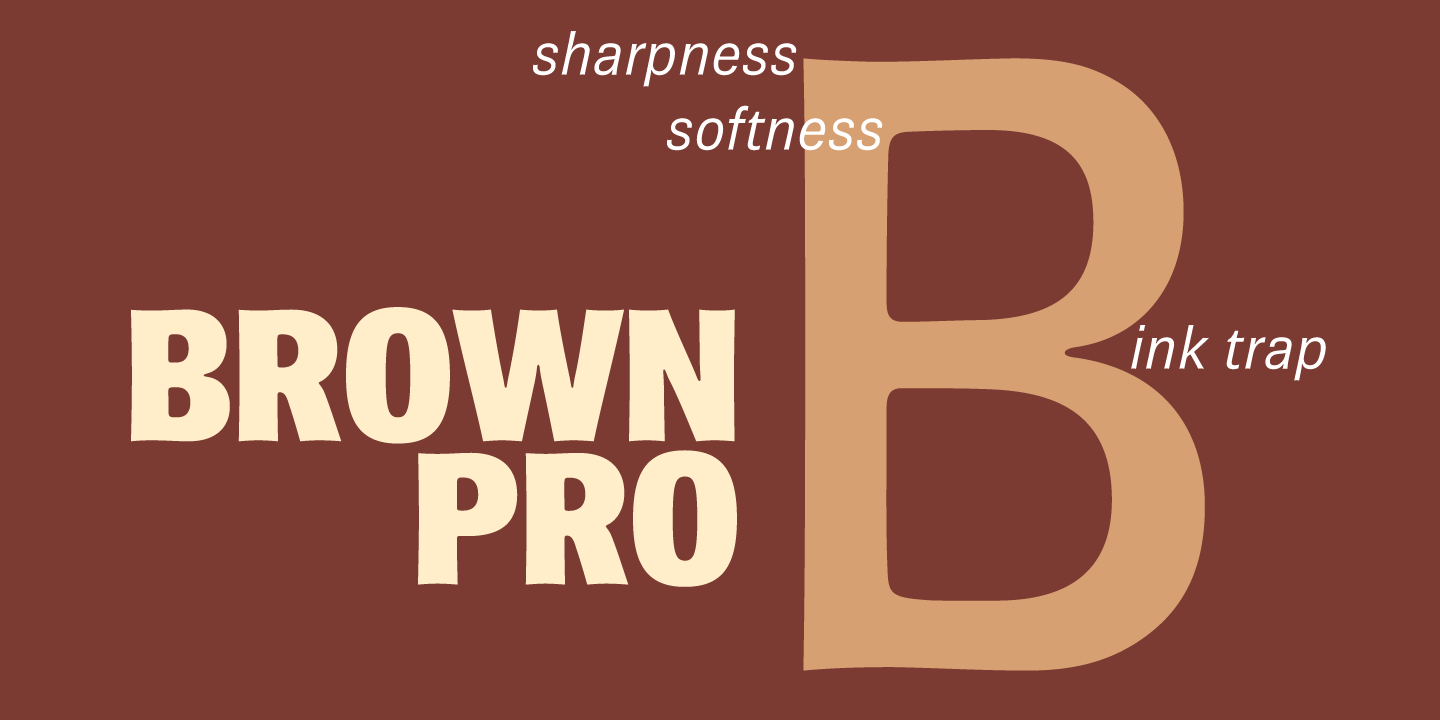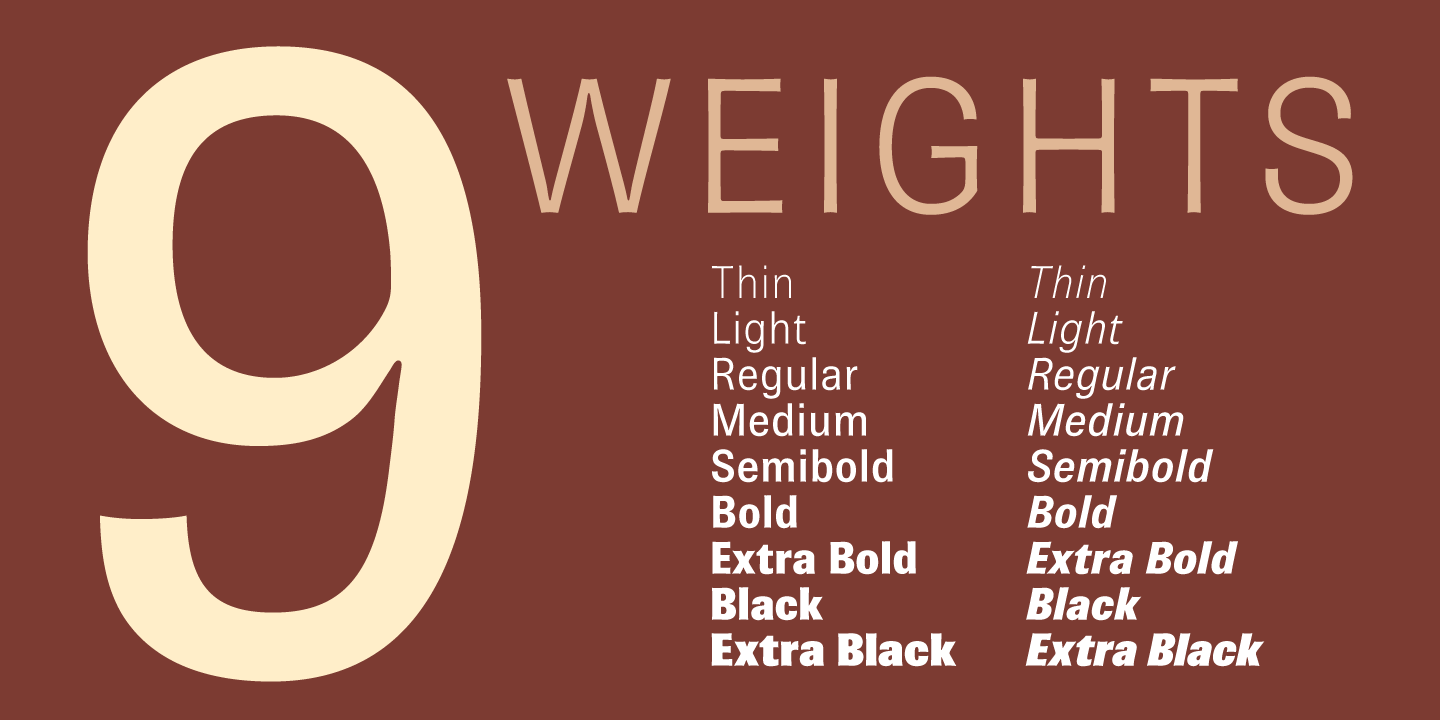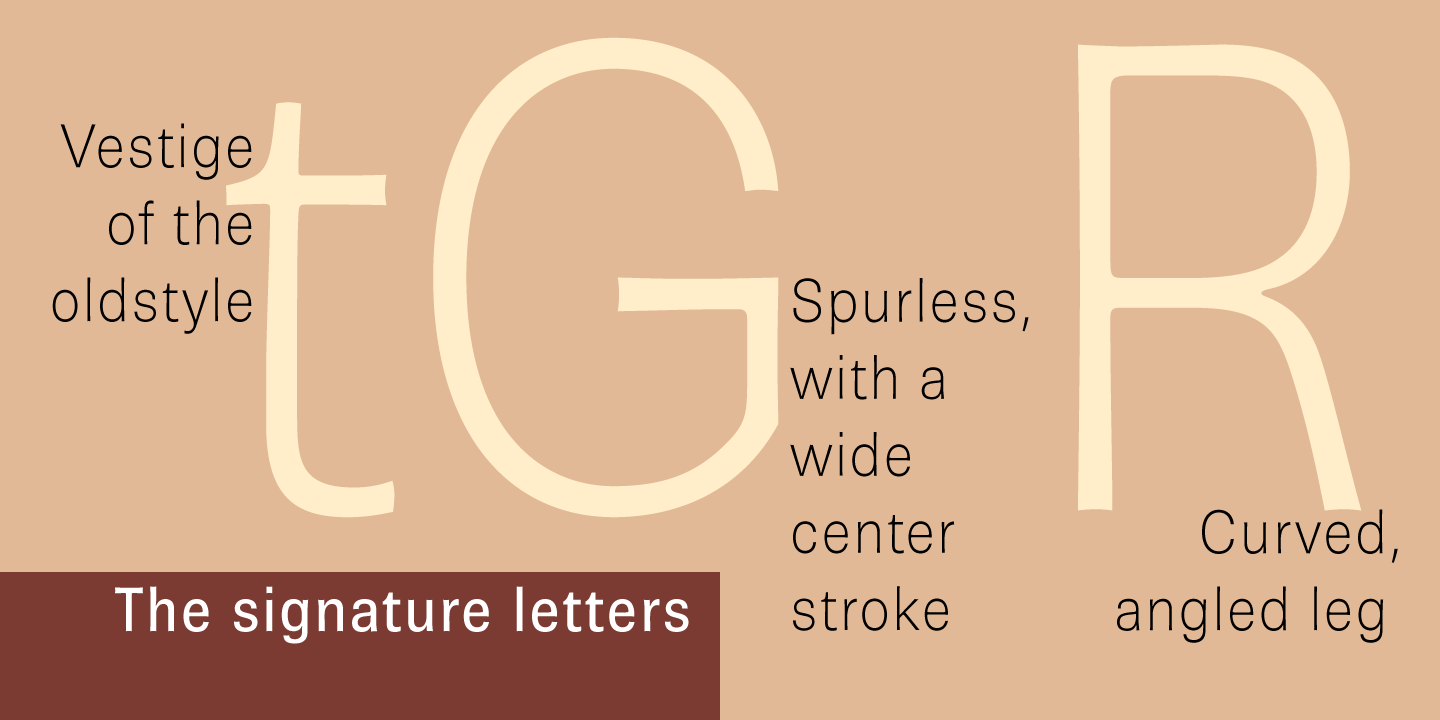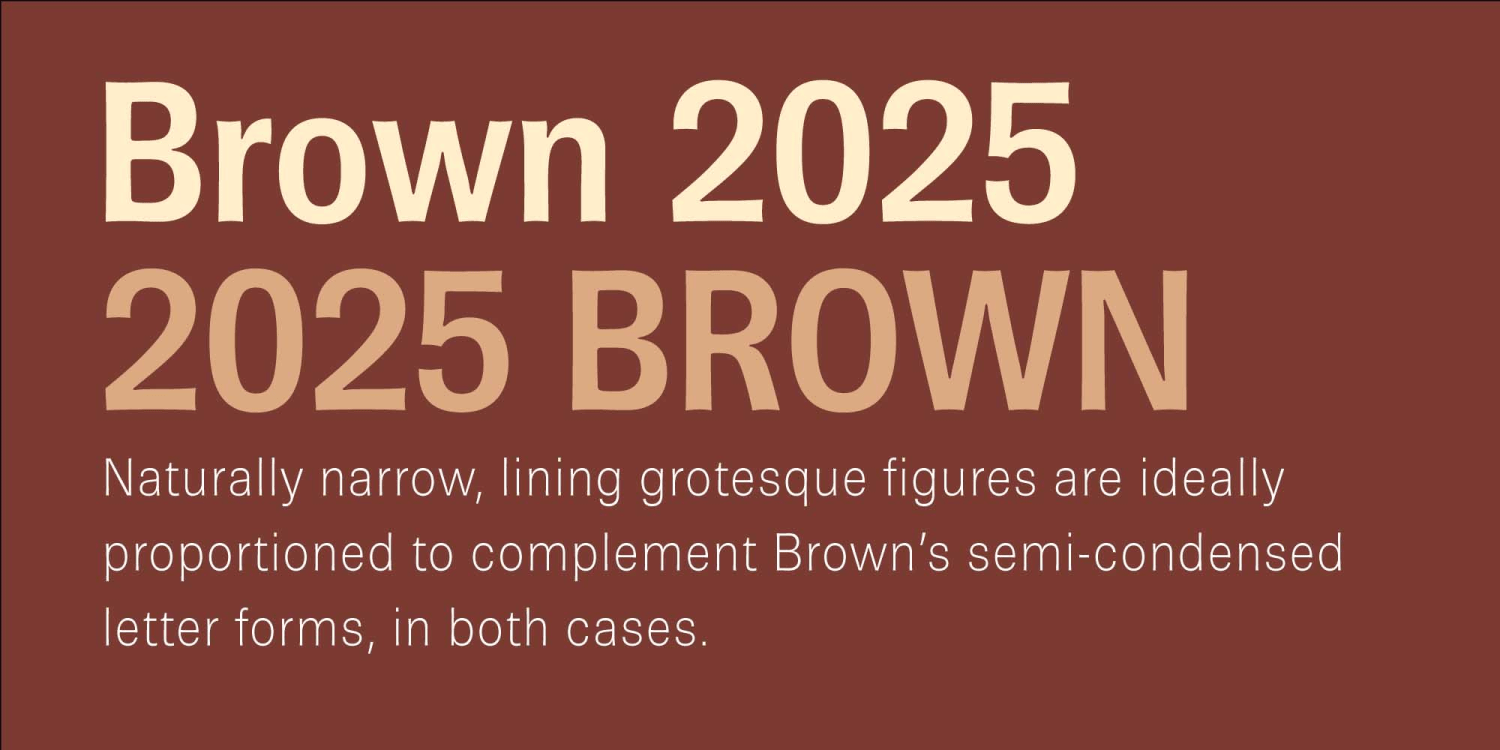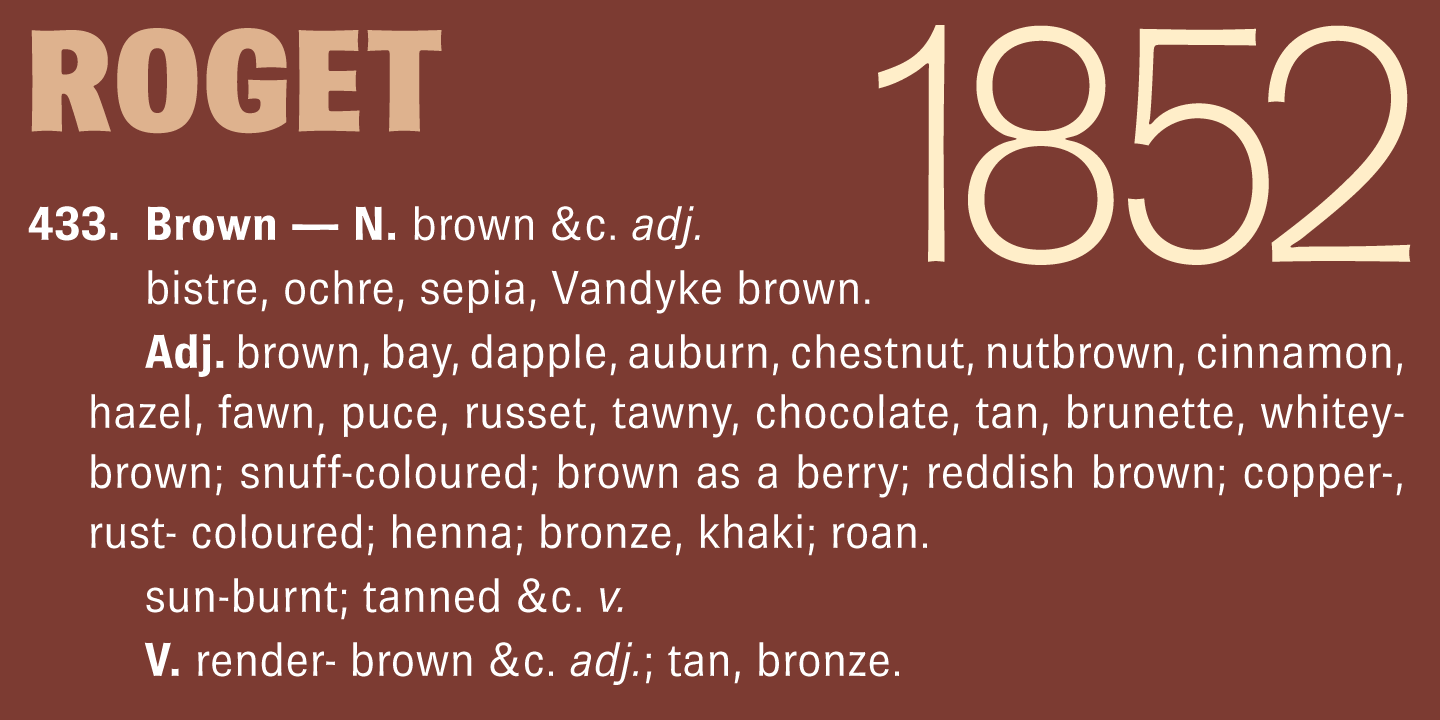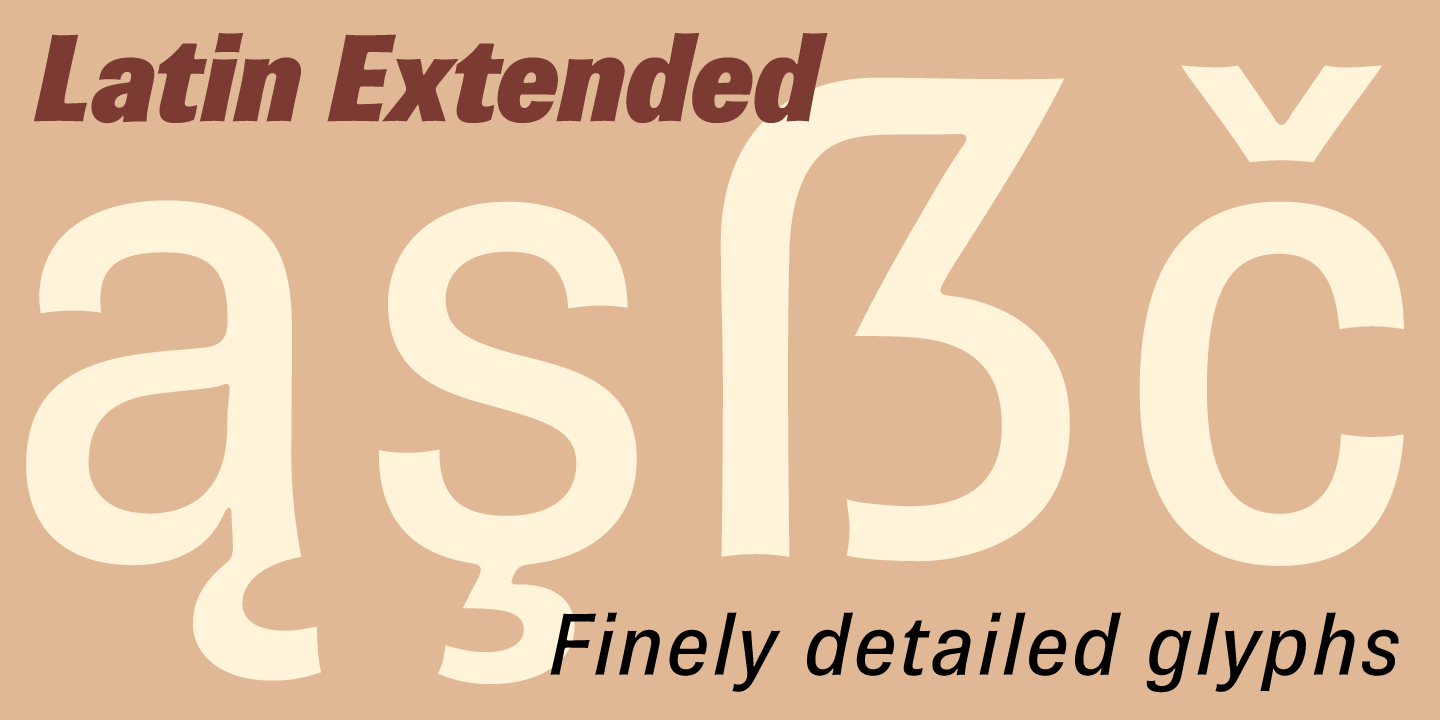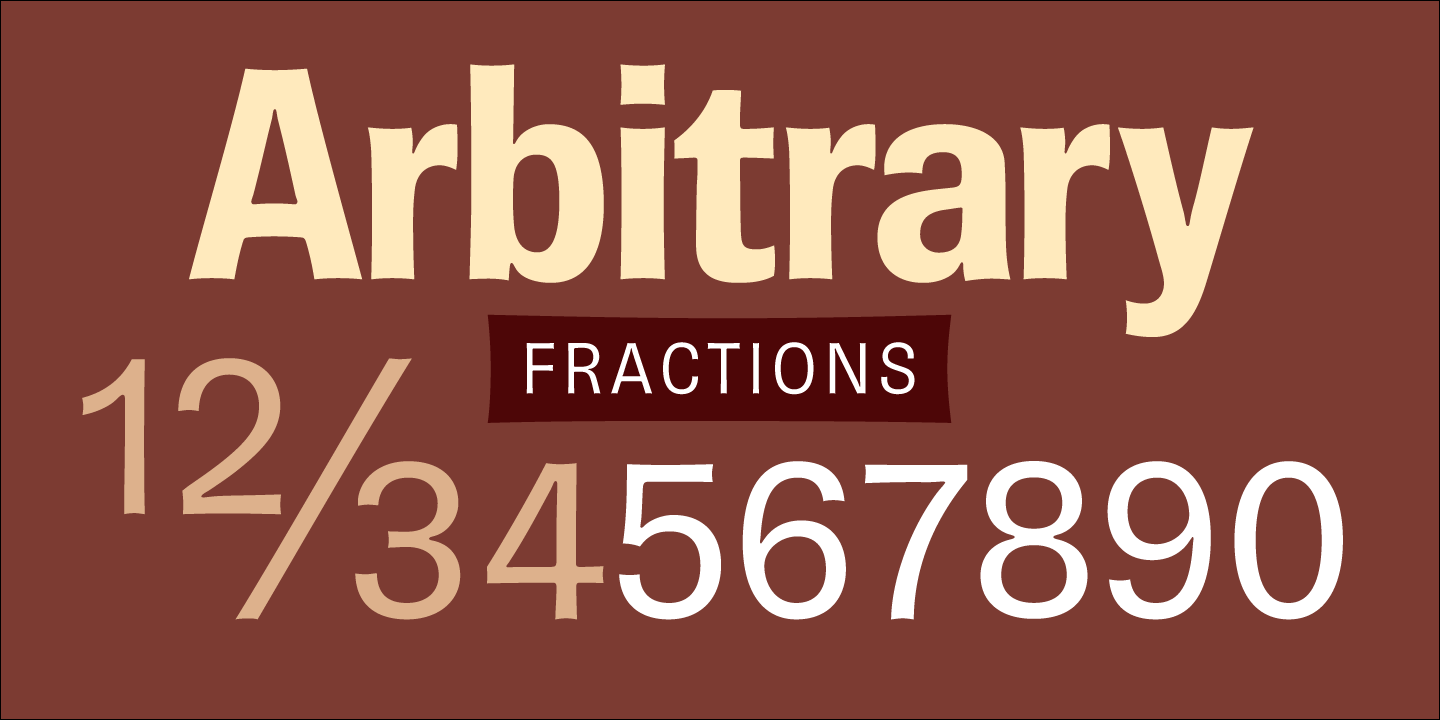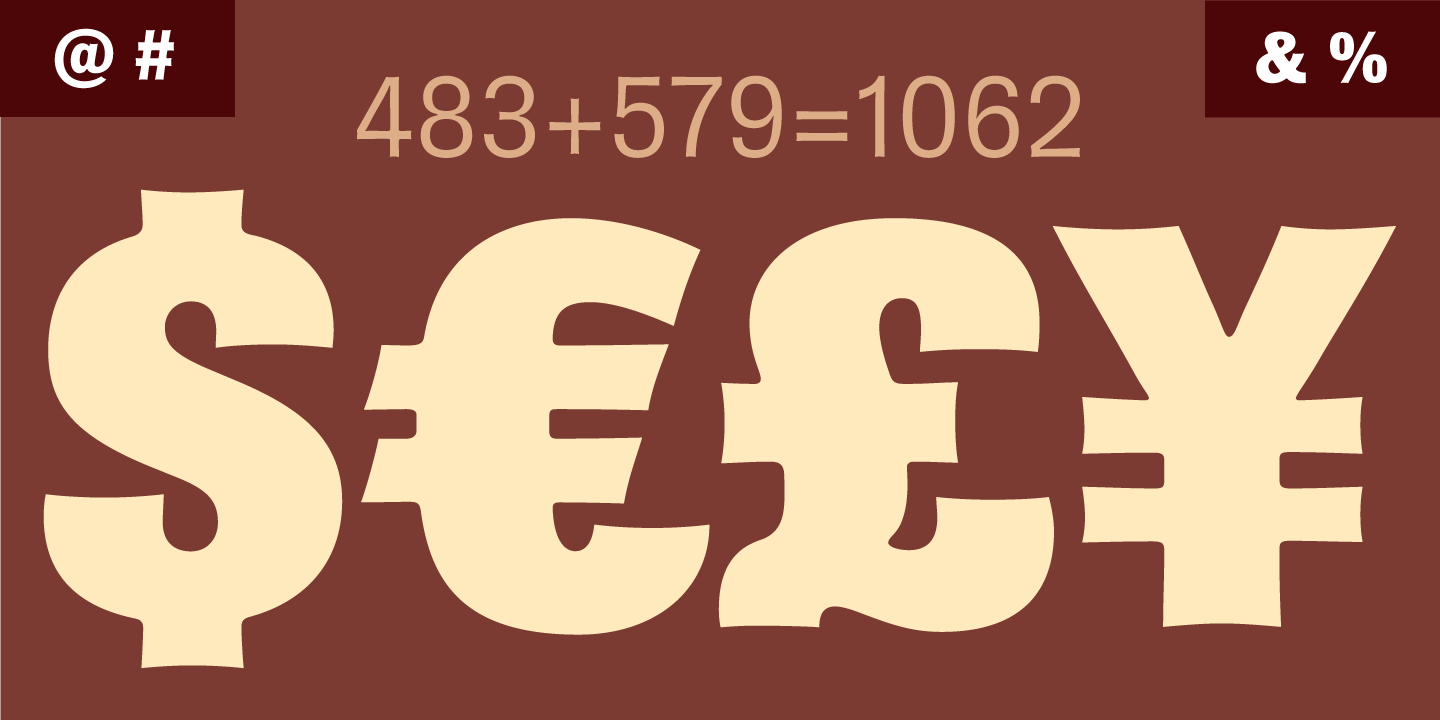
Brown Gothic
Brown Gothic is a compact sans serif face, with rounder letterforms than the usual condensed grotesques such as Helvetica, Univers, et al.
It has a barely discernible modulation, which is slightly less perceptible in the Extra Bold fonts (they also set tighter and are intended for use at large sizes). The effect matches ShinnType's Worldwide and Walburn.
Its letter forms are modernist, more like Helvetica or Univers than Franklin Gothic or Bureau Grotesque. But with its subtle finish, Brown avoids the reductive quality of 20th Century modernism.